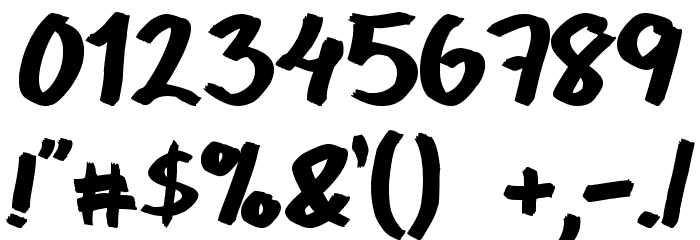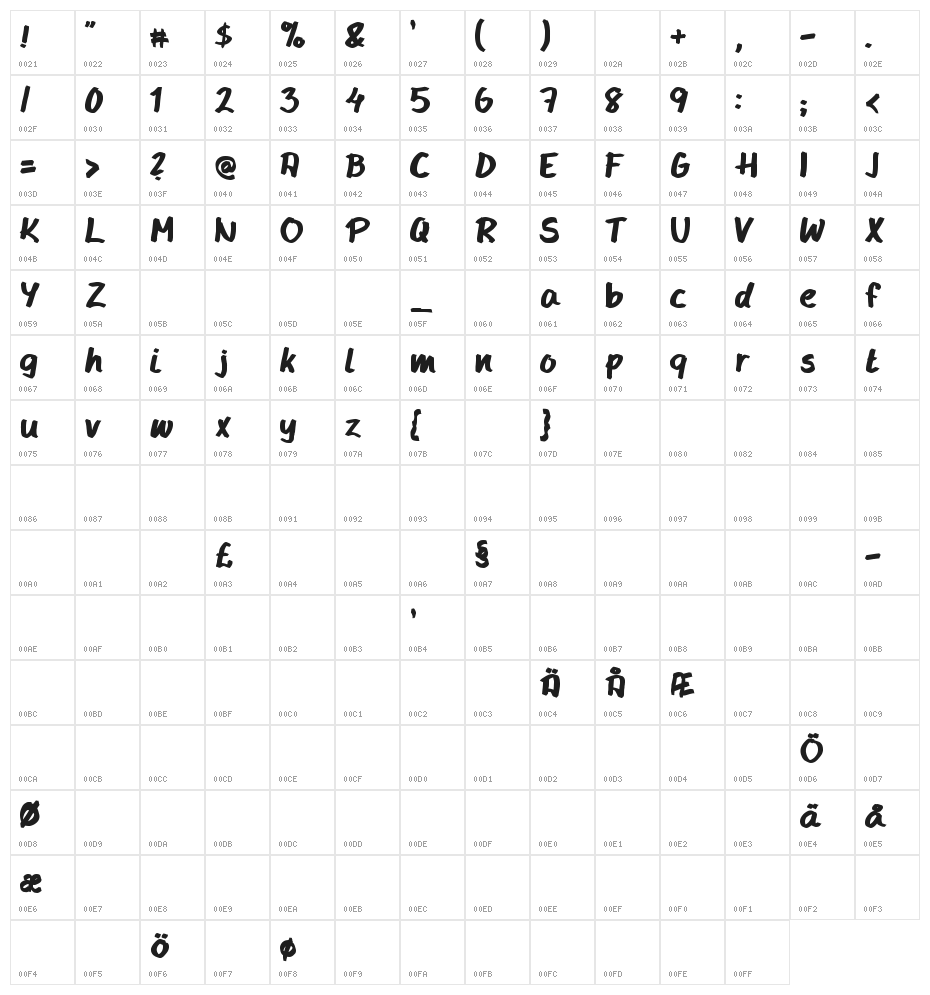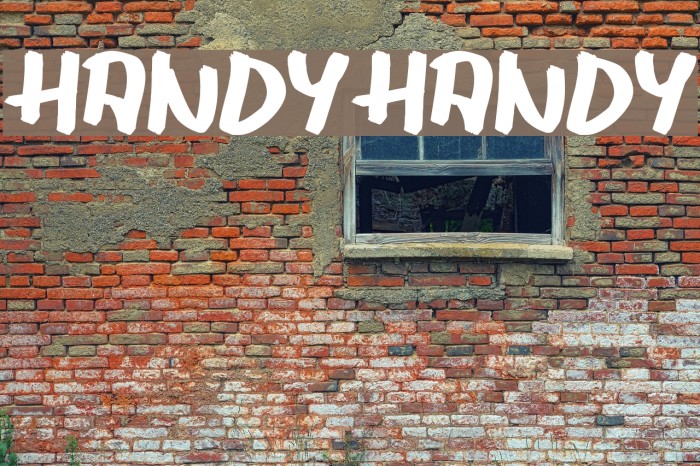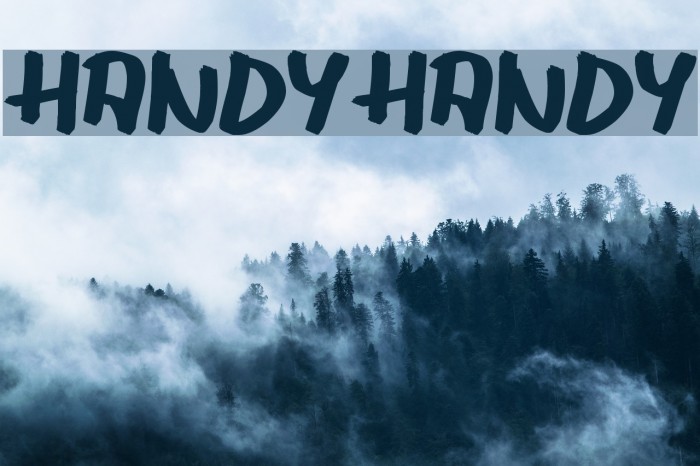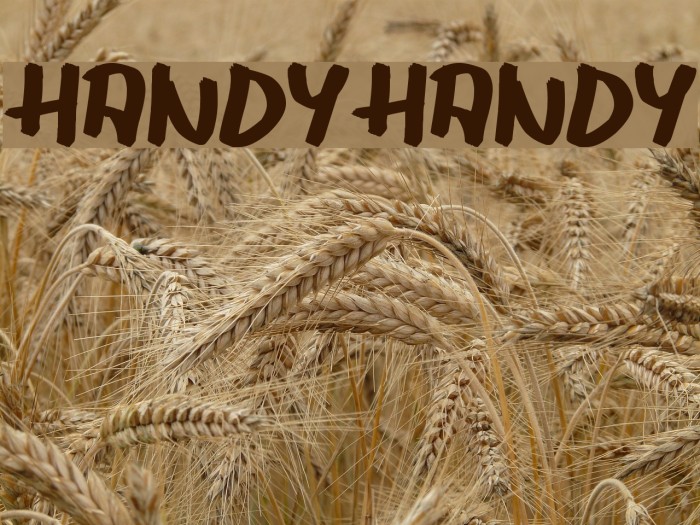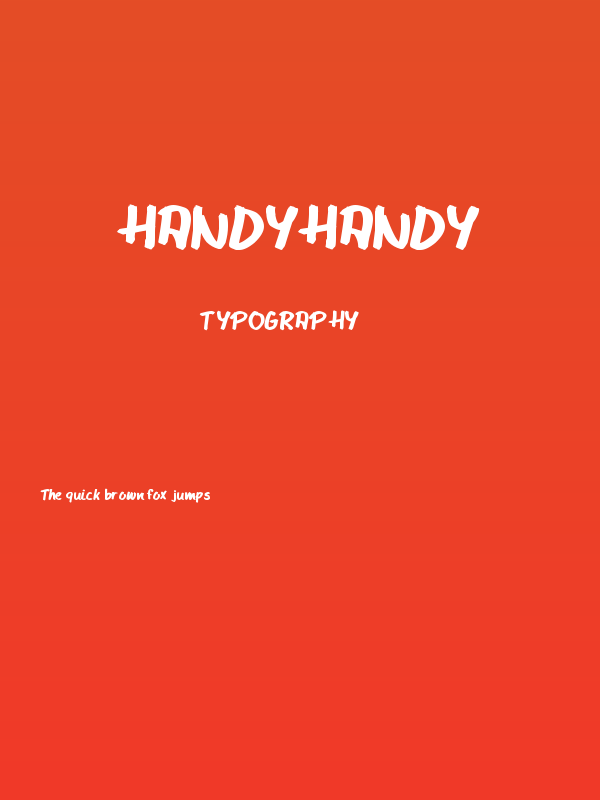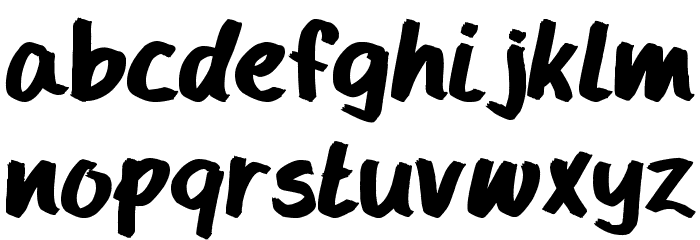
HANDYHANDY Font
HANDYHANDY Description
This font features a bold, handwritten style with a playful and energetic appearance. The letters are thick and slightly irregular, giving a casual and informal vibe. The uppercase and lowercase characters maintain a consistent flow, while the numerals and special characters complement the overall style. The strokes are rounded and smooth, enhancing the friendly and approachable feel. This font is ideal for projects that require a personal touch, such as invitations, greeting cards, or creative branding.
| Overall Style | Casual and playful |
| Use Case | Headlines, Logos, Informal text |
| Proposed Projects | Ideal for invitations, greeting cards, creative branding, and informal posters. |